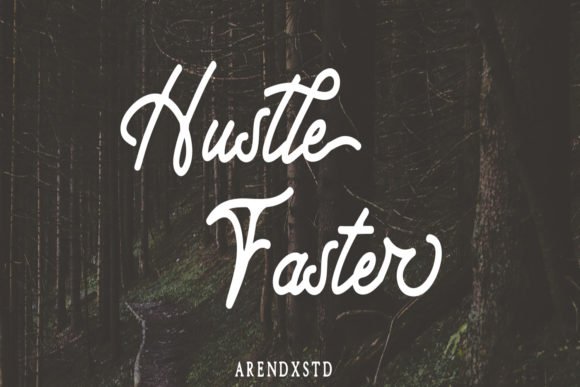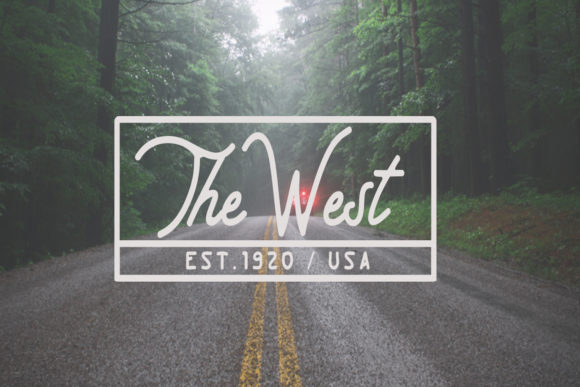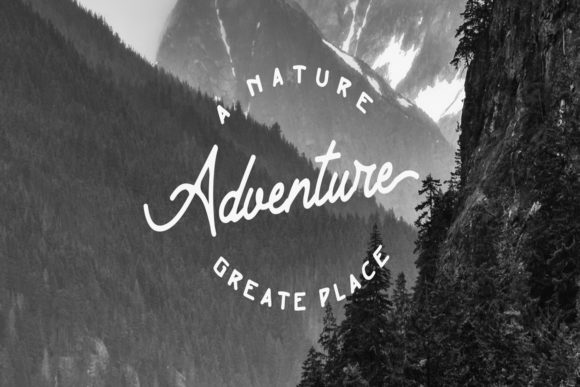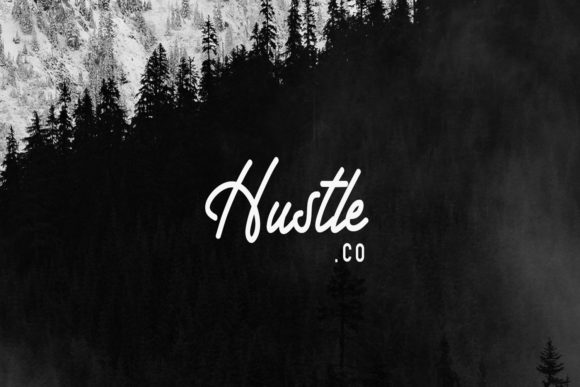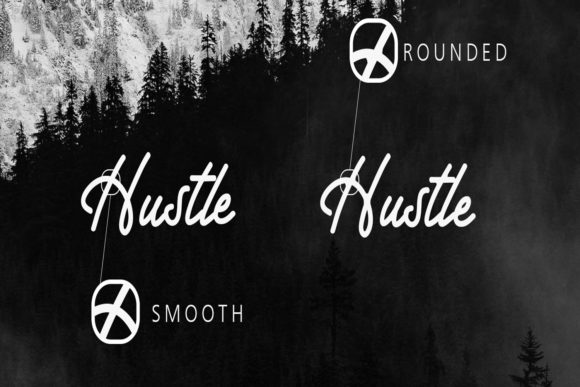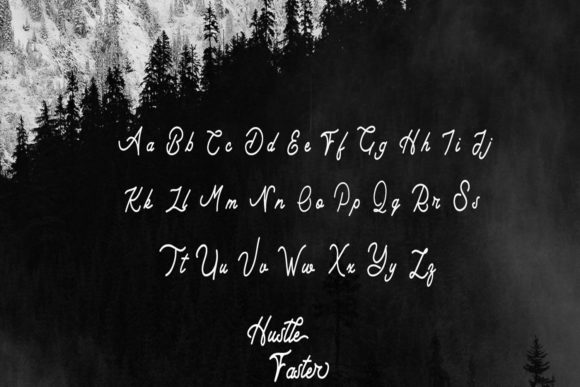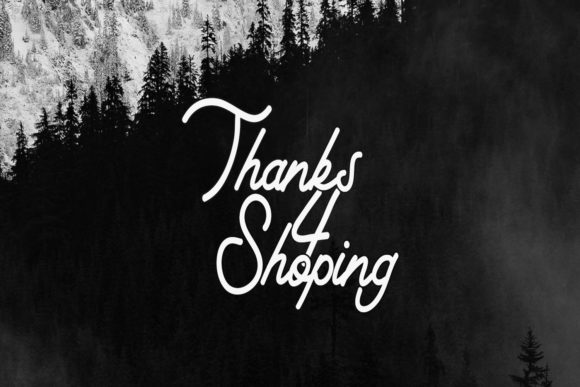
Unlock the Power of Your Design with Hustle Faster Font
Have you ever found yourself staring at a blank page, trying to come up with the perfect phrase to grab your audience’s attention? You know, that moment when everything clicks, and your creativity takes over? For designers, this is often the moment when a project truly comes to life.
That’s where Hustle Faster Font comes in – a stylish and cool display font designed to help you stand out from the crowd. With its smart twist, this font is perfect for adding a touch of personality to your designs. Whether you’re a seasoned pro or just starting out, Hustle Faster Font is a valuable tool that will take your work to the next level.
Whether you’re working on a logo, poster, or social media campaign, Hustle Faster Font is the perfect choice to add some extra oomph to your design.
Hustle Faster Font Key Features
- Unique Characteristics: The Hustle Faster Font features a bold, modern design with a unique blend of geometric and script elements, making it perfect for creating eye-catching headlines and titles.
Hustle Faster Font Review
I recently had the chance to work with the “Hustle Faster Font” and I must say it’s an interesting choice. Here are my thoughts:
- Unique aesthetic: The font has a distinct, bold look that can add a touch of personality to your designs.
- Good for headings: The font is well-suited for headings and titles, where you want to grab the user’s attention.
- Customizable: You can adjust the font’s weight, style, and size to fit your design needs.
- Limited legibility: At smaller sizes, the font can become difficult to read, especially in body text.
- Lacks consistency: The font’s irregularities can make it challenging to pair with other fonts or design elements.
- Not suitable for long blocks of text: The font’s bold nature can make it overwhelming when used for extended periods.
While the “Hustle Faster Font” can add a unique touch to your designs, its limitations make it better suited for specific use cases. Use it sparingly, and make sure to balance it with other design elements to avoid overwhelming the user.
Tips for Getting the Most Out of Hustle Faster Font
Use Hustle Faster Font for headings and titles to add a sense of urgency and energy to your design.
Combine Hustle Faster Font with other fonts to create a unique and dynamic typography style.
Hustle Faster Font is ideal for:
Marketing materials (e.g. brochures, flyers, etc.)
Presentations (e.g. business pitches, product demos, etc.)
Websites and blogs (e.g. headlines, titles, etc.)
Alternatives to Hustle Faster Font for Designers
Montserrat is a sans-serif font designed for urban environments. It’s perfect for creating a modern and sleek look. Montserrat has a more geometric feel compared to Hustle Faster Font, which makes it ideal for use in digital interfaces and branding materials.
2. Inter
Inter is a highly legible sans-serif font designed for digital use. It’s ideal for creating a clean and modern look. Inter has a more minimalist feel compared to Hustle Faster Font, which makes it perfect for use in tech companies and startups.